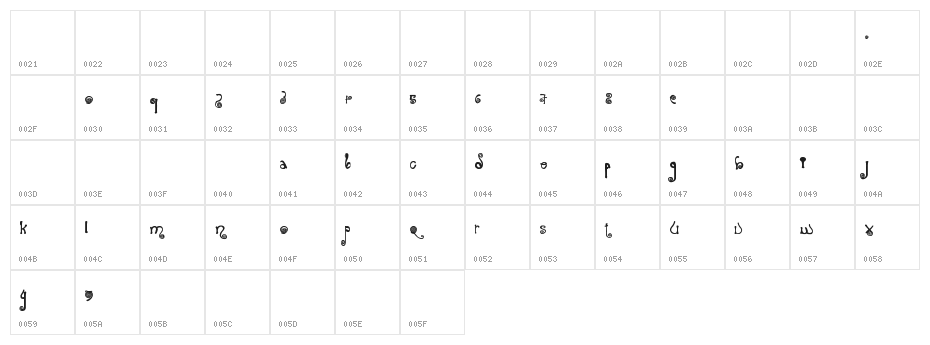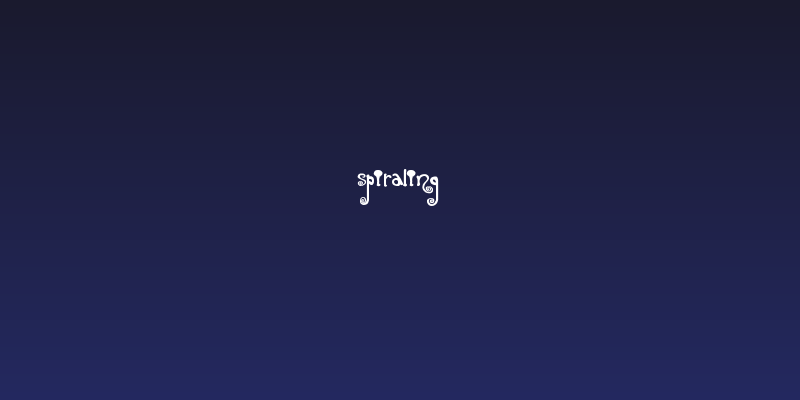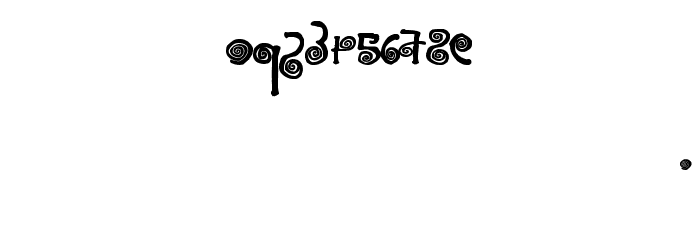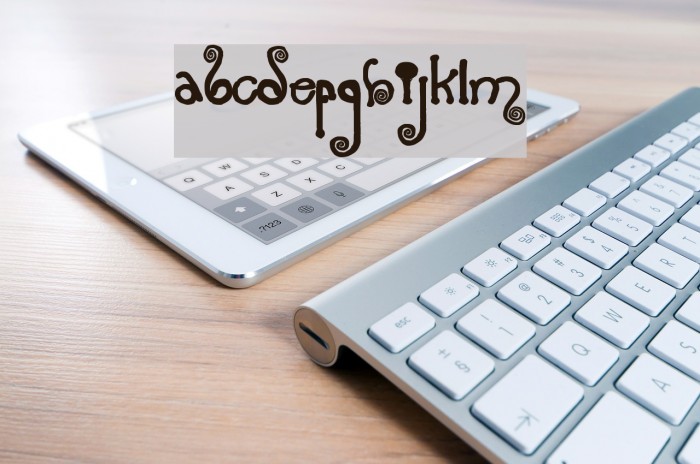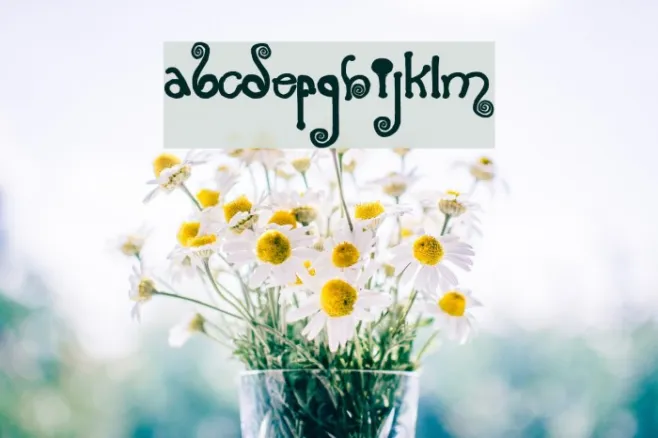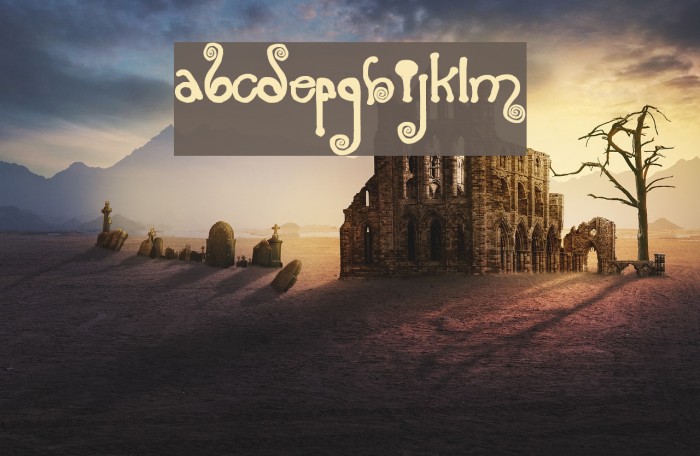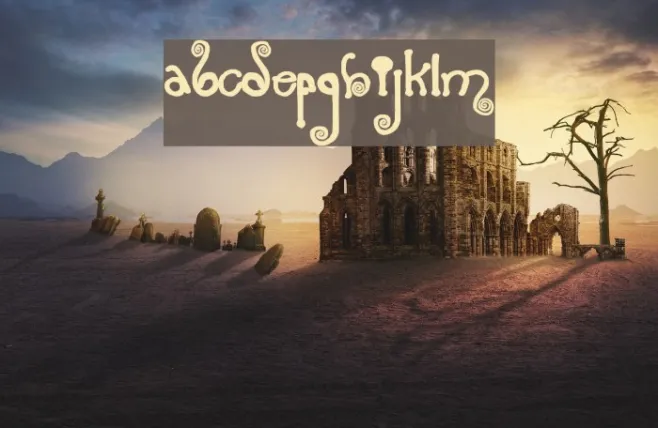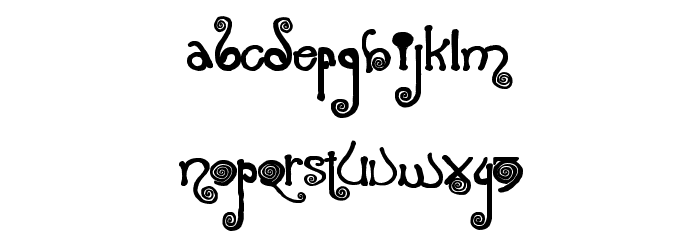
Spiraling Font
Spiraling Description
This font features a whimsical and decorative style, characterized by its unique spiral elements integrated into each character. The design is playful, with a sense of movement and creativity, making it stand out as a display typeface. The letters have a consistent spiral motif, giving them a cohesive and artistic appearance. The font is highly stylized, with each character exhibiting a distinct personality, perfect for projects that require a touch of fantasy or artistic flair. Its intricate design may not be suitable for body text but excels in capturing attention in headlines or creative works.
| Use Case | Headlines, Logos, Artistic projects |
| Proposed Projects | Ideal for fantasy book covers, creative posters, artistic branding, and decorative invitations. |